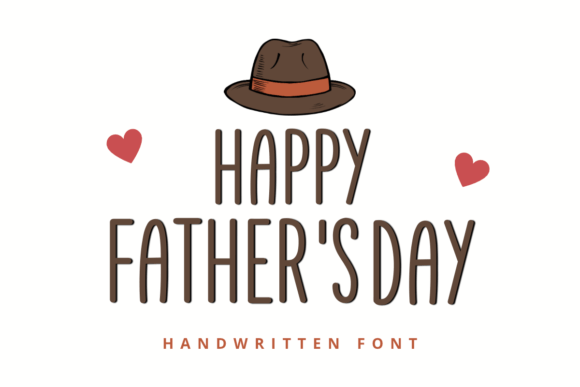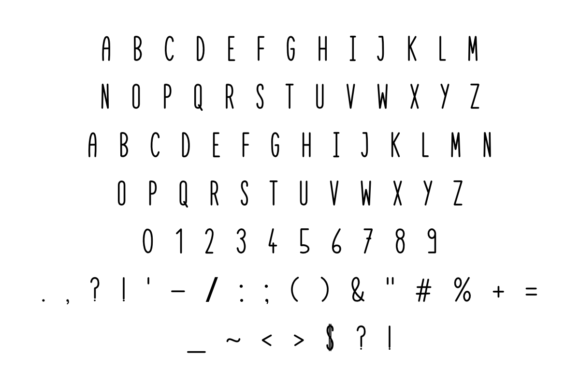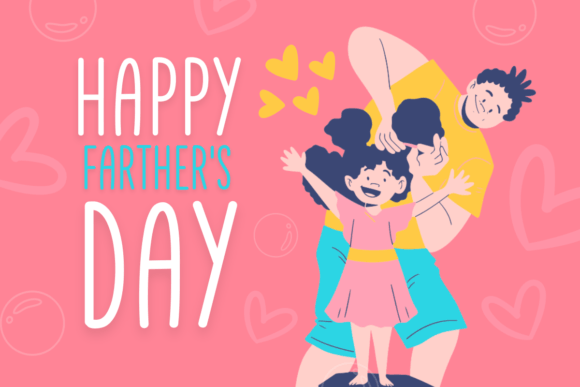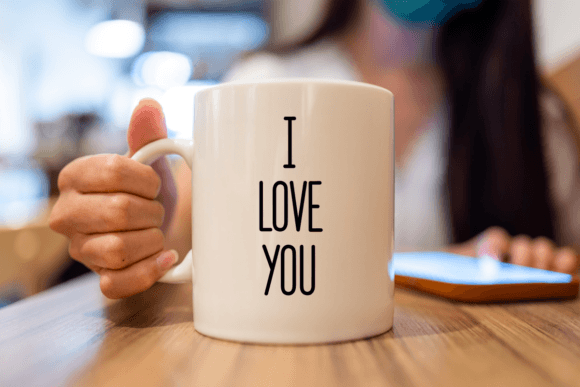
Happy Father’s Day Font
About the Happy Father’s Day Font
Get ready to be inspired by Happy Father’s Day Font, a fresh and dynamic typeface for modern creators. Happy Father’s Day is a tall and stylish display font, perfect for making your Father’s Day messages stand out. With its sleek and elongated letters, it adds a touch of elegance and warmth to your designs, whether you’re creating cards, posters, or social media posts.
Its tall, elegant x-height makes it ideal for headlines, short impactful statements, and branding applications where a sophisticated yet approachable feel is desired. It excels in creating eye-catching posters and social media graphics, but is less suitable for body text or long paragraphs due to its limited readability at smaller sizes. Avoid using it in user interfaces or situations requiring extensive text.
Happy Father’s Day Font’s core personality is warm and friendly, yet refined. It projects a sense of gentle strength and approachability, making it well-suited for brands associated with family, tradition, or high-quality craftsmanship.
Pairing it with a clean sans-serif like Montserrat for body copy maintains readability while complementing its elegant form. Alternatively, a classic serif such as Garamond could add a touch of timeless sophistication. Avoid pairing it with overly playful or informal fonts; a more restrained partner will best showcase its unique qualities.
Happy Father’s Day Font Usage Examples
Happy Father’s Day Font Example